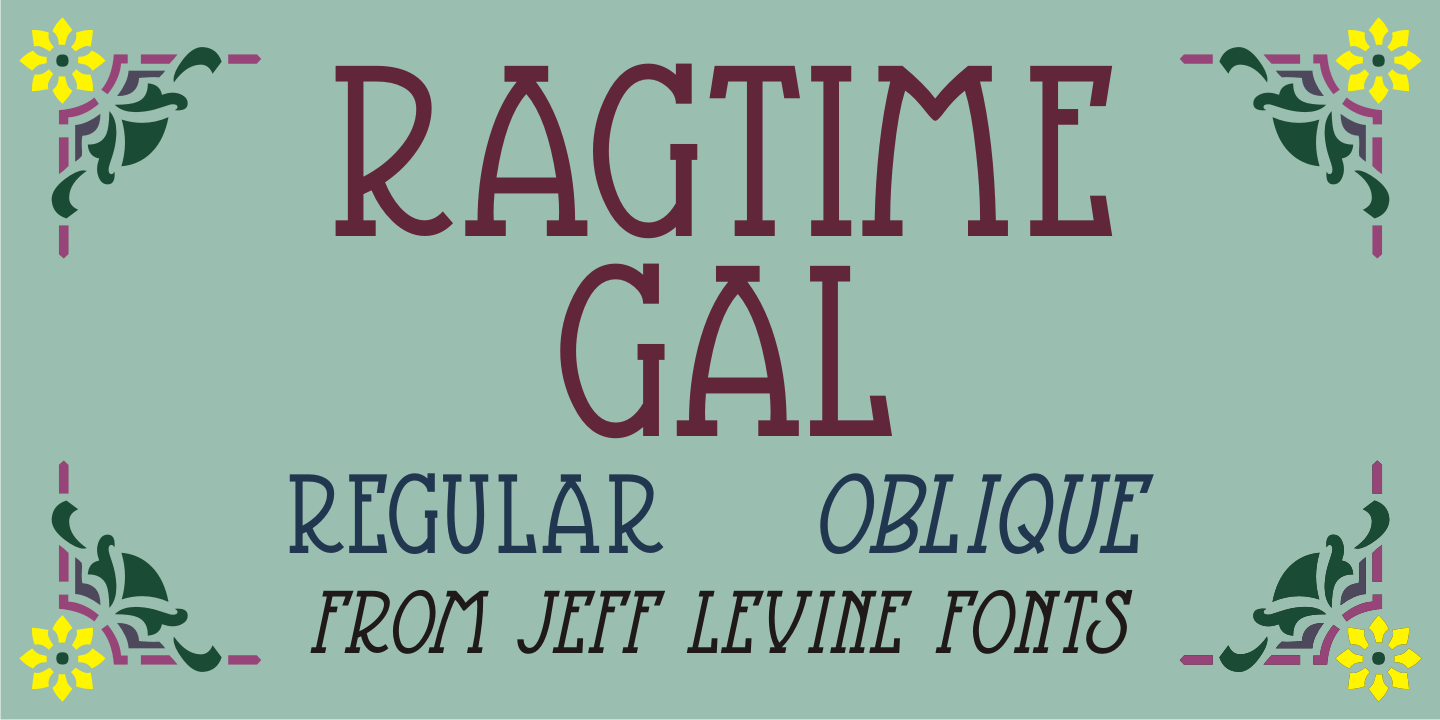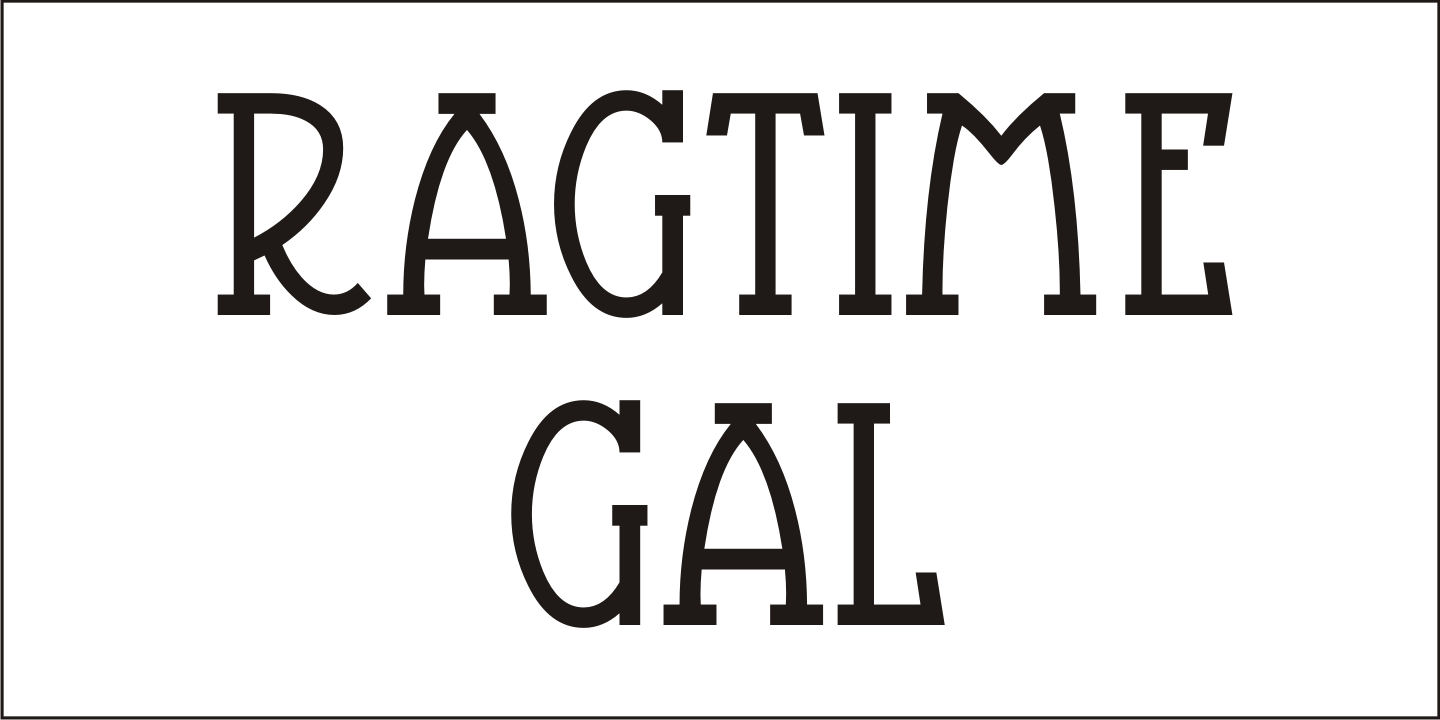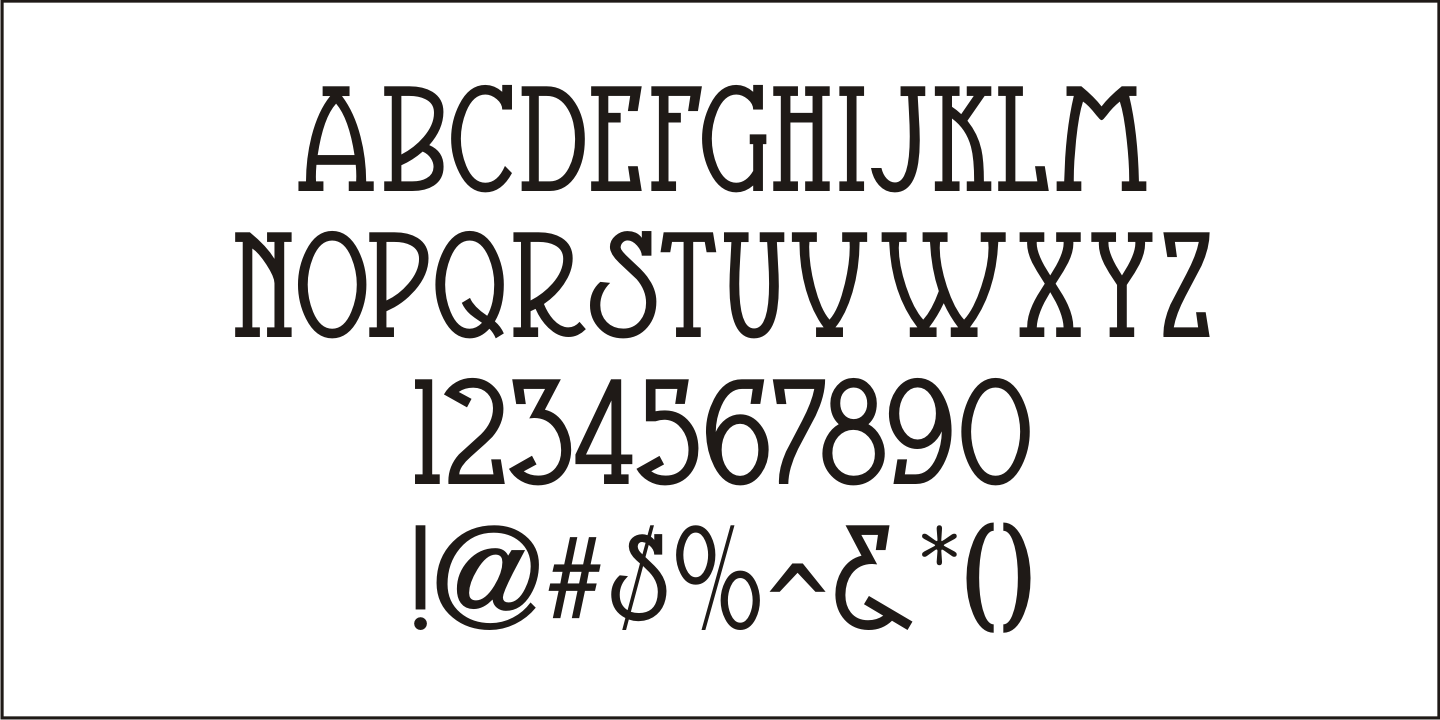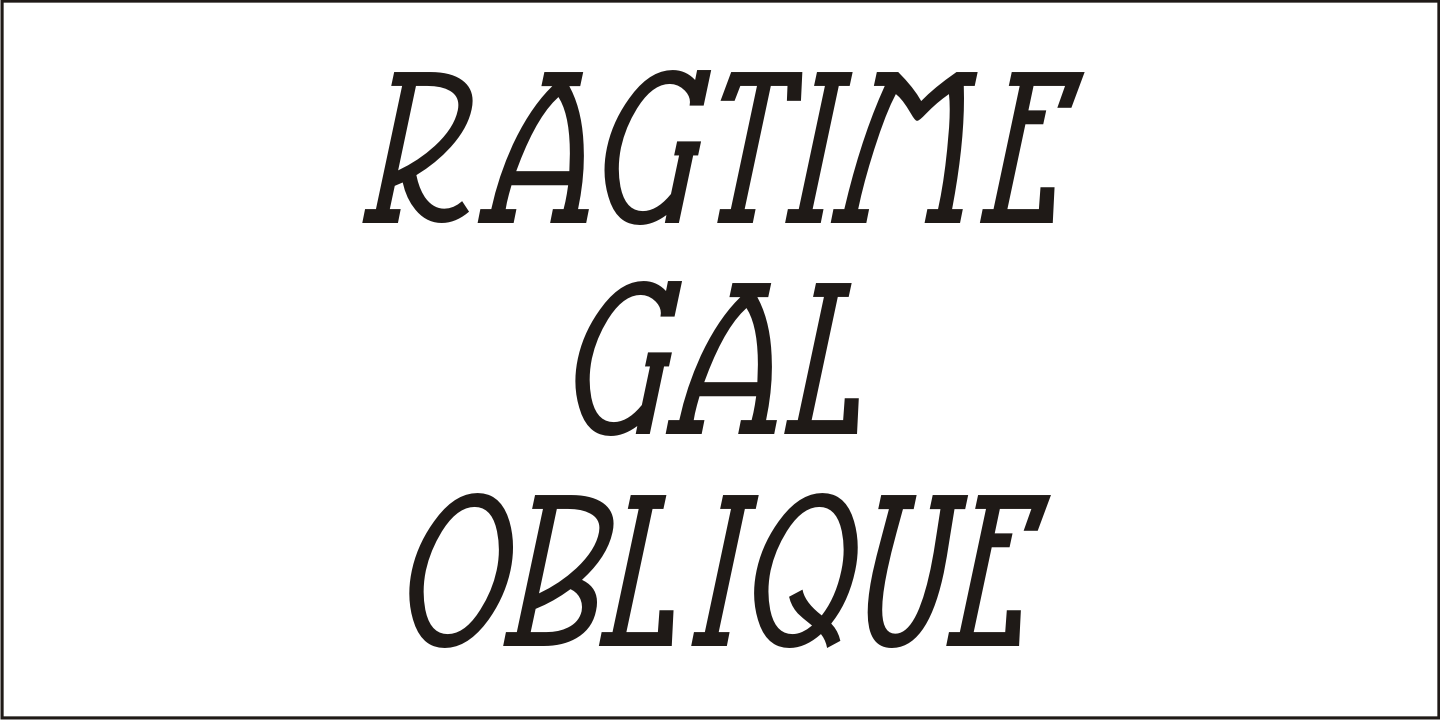
Ragtime Gal
Amongst a batch of antique sheet musical instruction booklets offered for sale online was a piece with Art Nouveau hand lettering on the cover entitled 'Seven Musical Travelogues for Piano'.
This design served as the inspiration and model for Ragtime Gal JNL, which is available in both regular and oblique versions.
The font's name comes from the line 'Hello my baby, hello my honey, hello my ragtime gal…' from the 1899 song 'Hello Ma Baby'; a tune that found a new burst of popularity in an odd way within a 1955 Warner Brother's cartoon ['One Froggy Evening'].